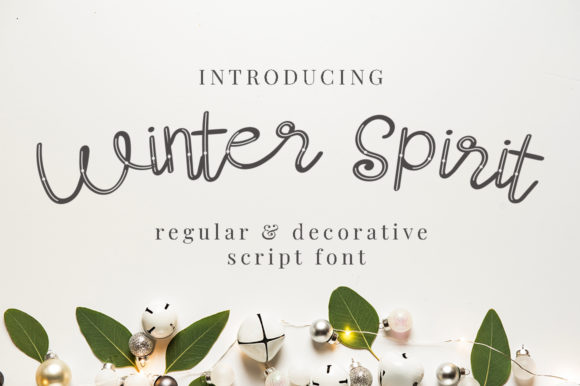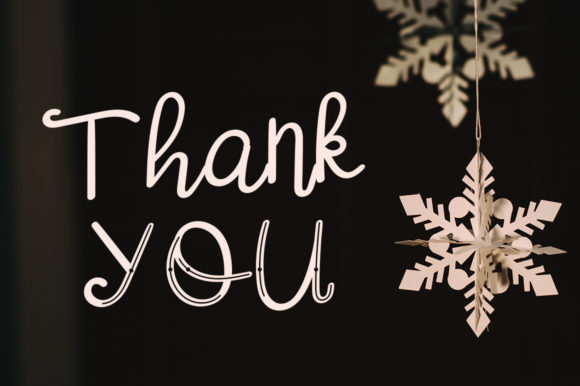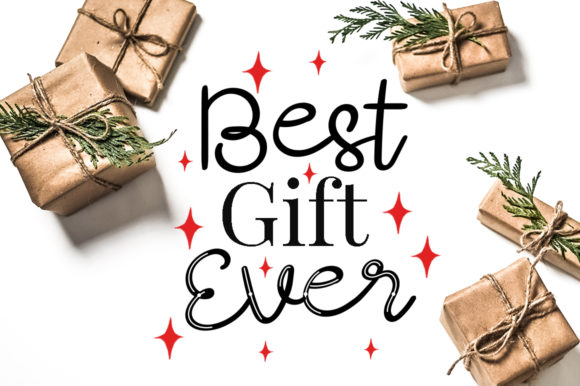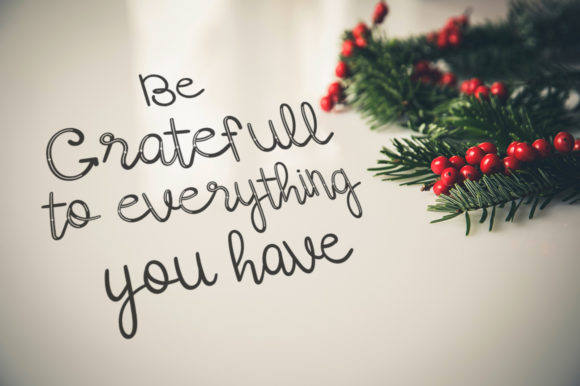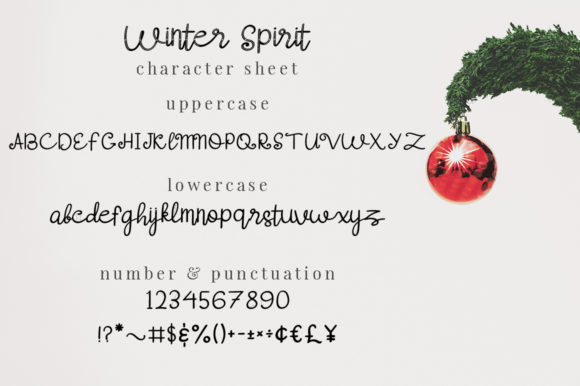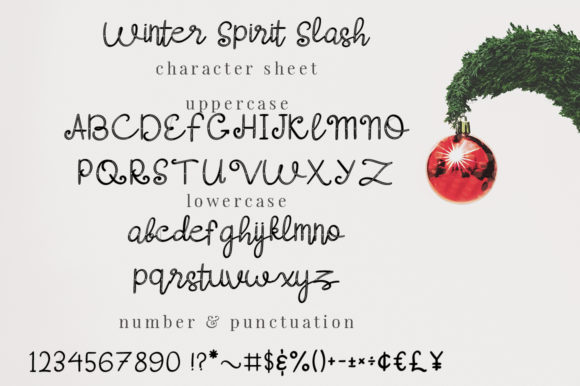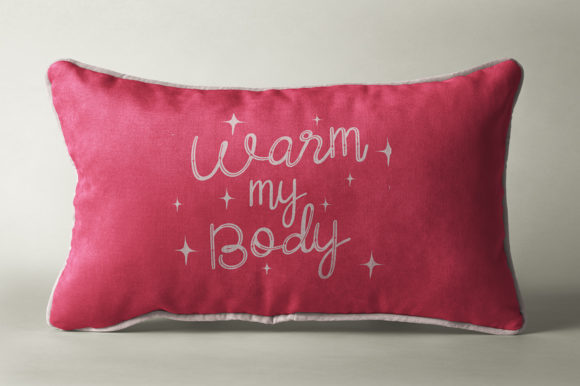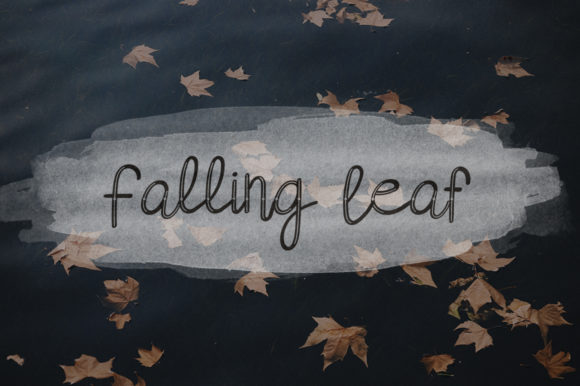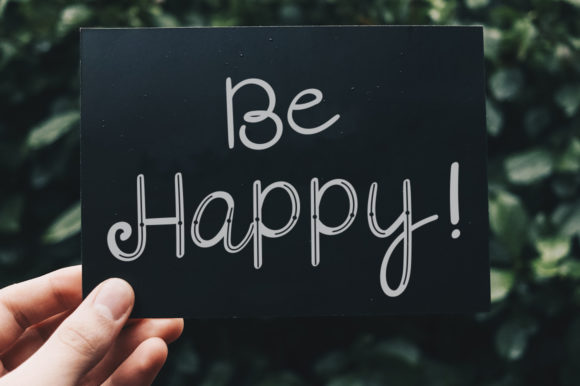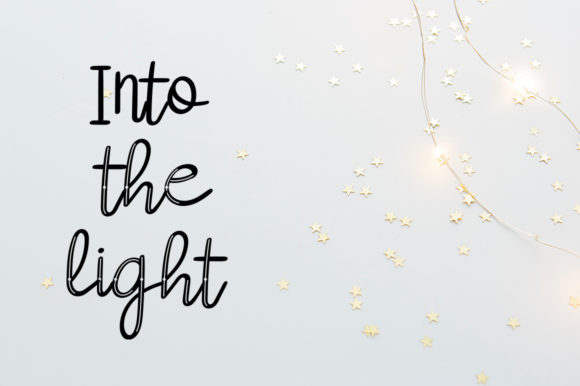
Winter Spirit Font
About Winter Spirit Font
The Winter Spirit font is a delightful and charming script font designed to bring a cute and elegant feel to your creative projects. Available in both regular and slash styles, this font offers versatility that can enhance various design applications.
With its endearing script style, Winter Spirit adds a touch of whimsy and charm to your designs. The regular and slash variations provide options for different contexts, allowing you to tailor the font to suit the specific tone and mood of your project.
This font is especially well-suited for wintertime themes, making it a perfect choice for crafting newsletters, handmade cards, scrapbook page titles, postcards, and personalized stationery during the festive season. Its cute and playful demeanor lends itself well to creating a warm and inviting atmosphere in your designs.
Whether you’re aiming for a cozy, handcrafted look or a more polished and elegant presentation, Winter Spirit accommodates both, making it a versatile tool for a range of creative endeavors. The font’s adaptability ensures that it can seamlessly integrate into different design contexts while maintaining its distinctive and appealing characteristics.
In essence, The Winter Spirit is more than just a font; it’s a design asset that brings a cute and elegant touch to wintertime creations. Its playful script style and dual variations open up possibilities for a wide array of projects, making it an excellent choice for designers looking to infuse their work with a delightful and festive spirit.